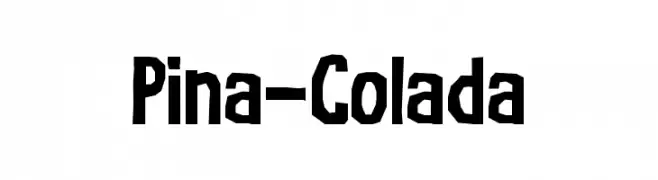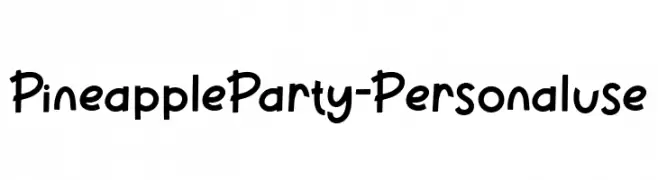
( Fonts by Octotype | Thomas Boucherie )
A playful, bold font with rounded edges and a hand-drawn look.
( Fonts by Pinisiart )
A bold, playful font with a hand-drawn, irregular style.
A playful, bold font with rounded, thick strokes and a friendly appearance.
( Fonts by Nico Muslib )
A playful, bold font with rounded, hand-drawn characters.
( Fonts by Attype Studio )
A playful, bold, and hand-drawn font with rounded characters and a whimsical style.
( Fonts by Attype Studio )
A playful, decorative font with a pineapple texture pattern.
A playful, bold font with rounded, bubble-like characters.
A bold, rounded font with a playful and whimsical style.
( Fonts by Letter Art Studio )
A playful, bold font with decorative cutouts and rounded characters.
( Fonts by Nico Muslib )
A playful, bold, and whimsical font with rounded letterforms and decorative flourishes.